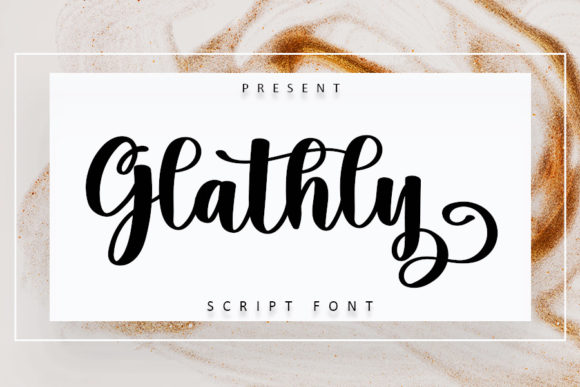
Glathly Font: The Epitome of Sophistication and Style
Prepare to be mesmerized by Glathly, an enchanting script font that will ignite your designs with a spark of luxury. Crafted by the renowned FreshTypeINK, this exquisite typeface exudes elegance and refinement with every stroke.
Glathly's captivating curves dance across the page, evoking a sense of timeless beauty. Its carefully crafted glyphs and ligatures, accessible through PUA encoding, empower you to unleash your creativity with unparalleled ease. Each letter is a masterpiece in itself, seamlessly flowing together to create a harmonious symphony of style.
Whether you're crafting elegant business checks, designing captivating logos, or seeking to add a touch of sophistication to your digital creations, Glathly rises to the occasion with effortless grace. Its versatility knows no bounds, making it the perfect choice for a myriad of projects.
Immerse yourself in the world of Glathly, where elegance meets inspiration. This font will transform your designs into breathtaking works of art, leaving a lasting impression on all who behold them. Elevate your projects to new heights of sophistication with Glathly, the ultimate script font for discerning designers and creative visionaries.